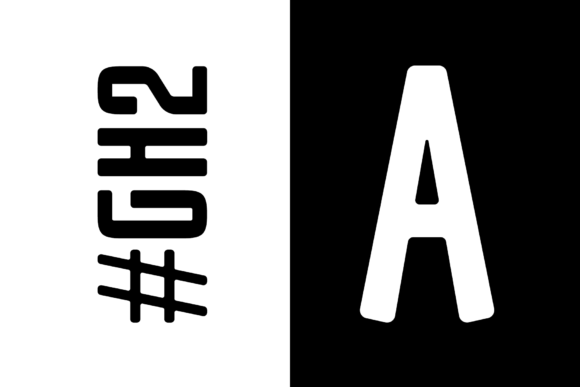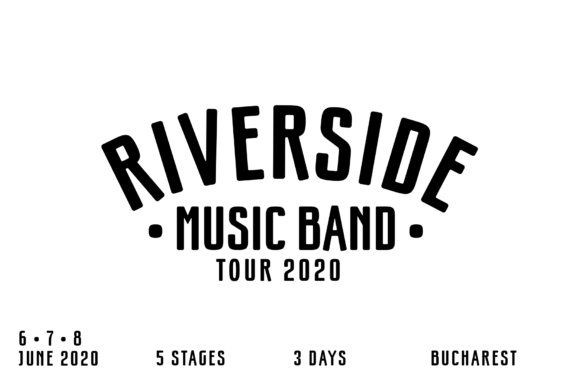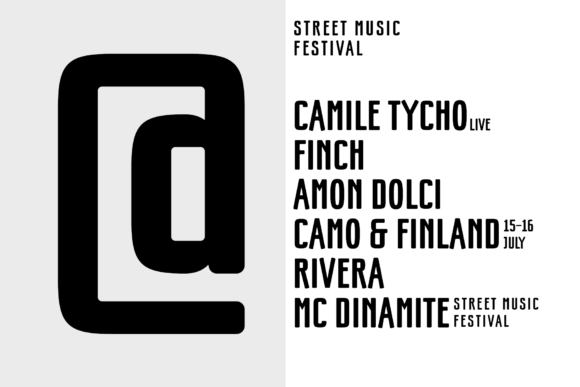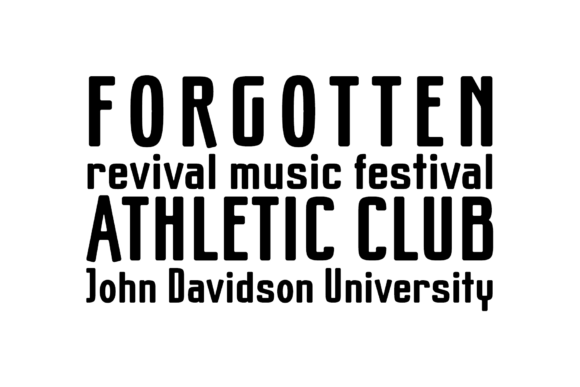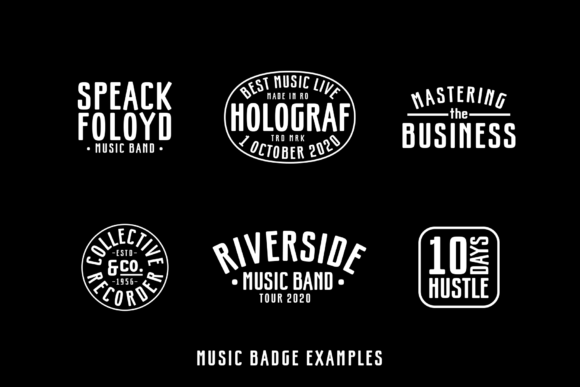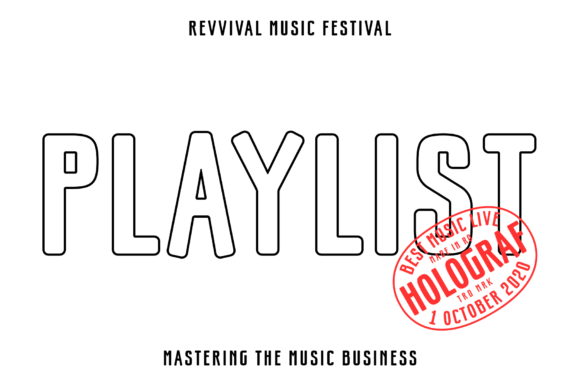
Griphead Font: The Ultimate Choice for Adventurous Designs
Are you a designer or crafter looking for a font that can add an adventurous and authentic feel to your next design project? Look no further than Griphead Font! This casual sans serif font is perfect for creating unique and eye-catching designs that stand out from the crowd.
What is Griphead Font?
Griphead Font is a modern sans serif font that exudes a sense of adventure and authenticity. Its casual and relaxed vibe makes it perfect for designs that require a friendly and approachable feel. The font is designed to be highly legible, making it suitable for use in a wide range of design projects, from logos and branding to posters and social media graphics.
Key Features of Griphead Font
So, what makes Griphead Font so special? Here are some of its key features:
- Casual and relaxed vibe: Griphead Font has a laid-back feel that’s perfect for designs that require a friendly and approachable tone.
- Highly legible: The font is designed to be easy to read, making it suitable for use in a wide range of design projects.
- Sans serif design: The font features a clean and minimalist sans serif design that’s perfect for modern designs.
- Unique character set: Griphead Font includes a unique character set that’s perfect for creating eye-catching designs.
Use Cases for Griphead Font
Griphead Font is a versatile font that can be used in a wide range of design projects. Here are some use cases where Griphead Font shines:
- Logos and branding: Use Griphead Font to create unique and memorable logos and branding materials.
- Posters and flyers: The font is perfect for creating eye-catching posters and flyers that grab attention.
- Social media graphics: Use Griphead Font to create engaging social media graphics that stand out from the crowd.
- Packaging design: The font is suitable for use in packaging design, adding a touch of adventure and authenticity to your products.
Why Choose Griphead Font?
So, why should you choose Griphead Font for your next design project? Here are some reasons:
- Unique and eye-catching: Griphead Font is a unique and eye-catching font that can help your designs stand out from the crowd.
- Highly versatile: The font is highly versatile and can be used in a wide range of design projects.
- Easy to read: Griphead Font is highly legible, making it easy to read and understand.
- Perfect for adventurous designs: The font is perfect for designs that require an adventurous and authentic feel.
Tips for Using Griphead Font
Here are some tips for using Griphead Font effectively in your designs:
- Use it in large sizes: Griphead Font looks great in large sizes, making it perfect for headlines and titles.
- Experiment with colors: The font looks great in a wide range of colors, so don’t be afraid to experiment and find the perfect color scheme for your design.
- Pair it with other fonts: Griphead Font can be paired with other fonts to create a unique and eye-catching design.
In conclusion, Griphead Font is a unique and versatile font that’s perfect for designers and crafters looking to add an adventurous and authentic feel to their designs. With its casual and relaxed vibe, highly legible design, and unique character set, Griphead Font is the ultimate choice for creating eye-catching designs that stand out from the crowd.